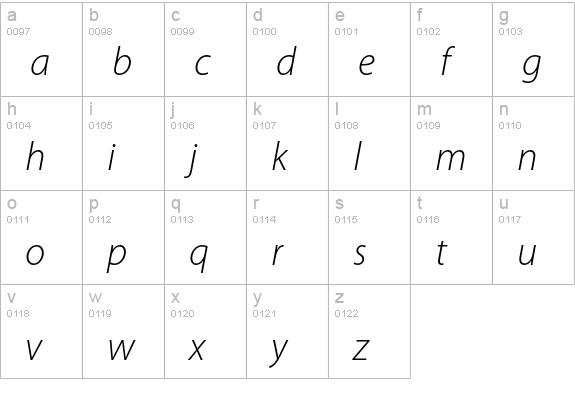
Myriad Pro Light Italic is a refined, elegant, italic variant in the Myriad typeface family \xE2\x80\x94 well suited to elegant body text, refined sub-headings, and luxury branding.
Myriad Pro Light Italic font is a sleek and elegant typeface that exudes sophistication and modernity. With its delicate slant and graceful curves, this font adds a touch of style to any design project. Perfect for conveying a sense of refinement and subtlety, Myriad Pro Light Italic is ideal for use in advertising, branding, and editorial design. The best part? Myriad Pro Light Italic is available for free download at FontsMarket.com. Now you can elevate your projects with this beautiful font without breaking the bank. Don't miss out on this opportunity to enhance your designs with the timeless charm of Myriad Pro Light Italic – download it now and add a touch of class to your creations.